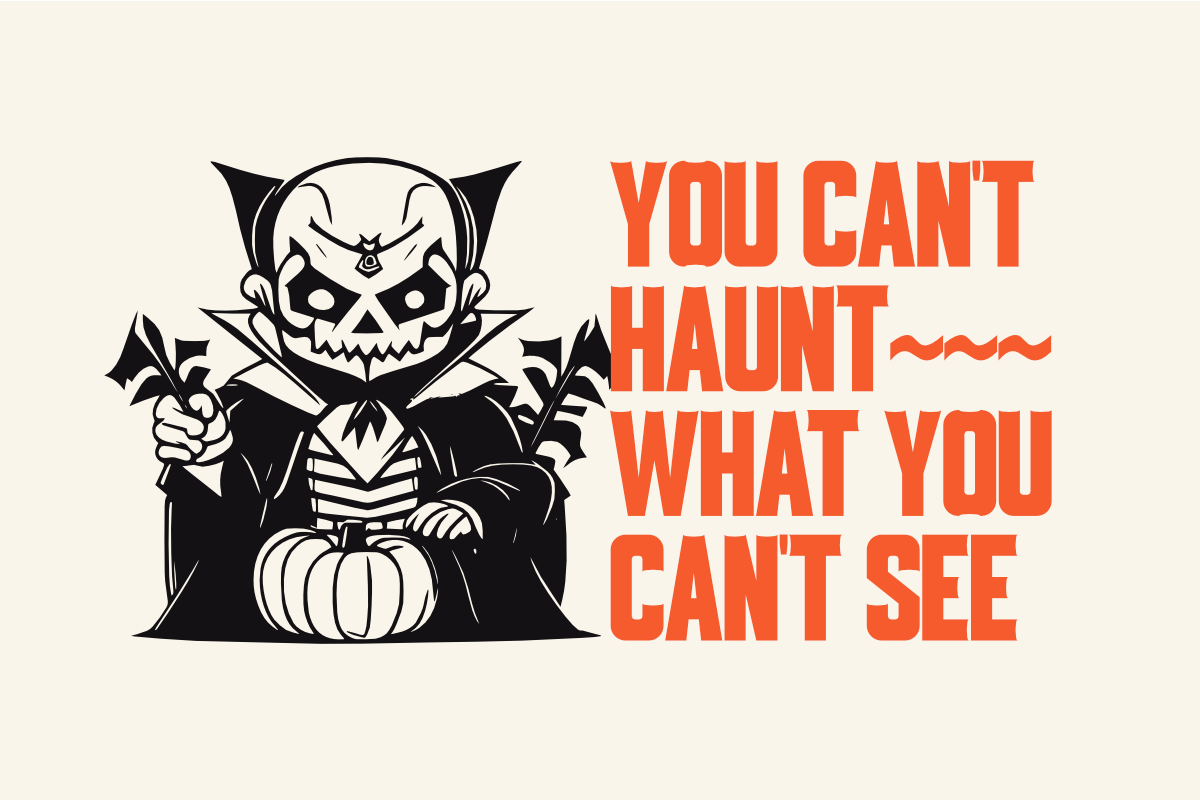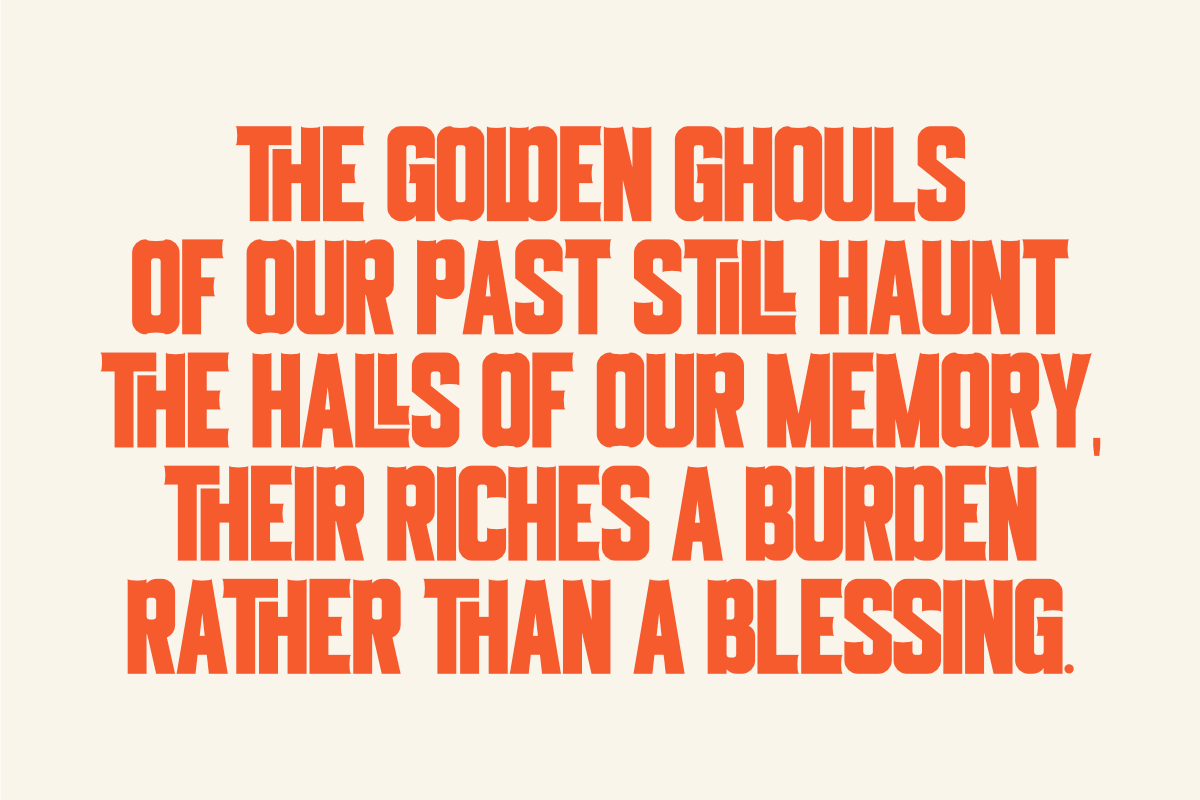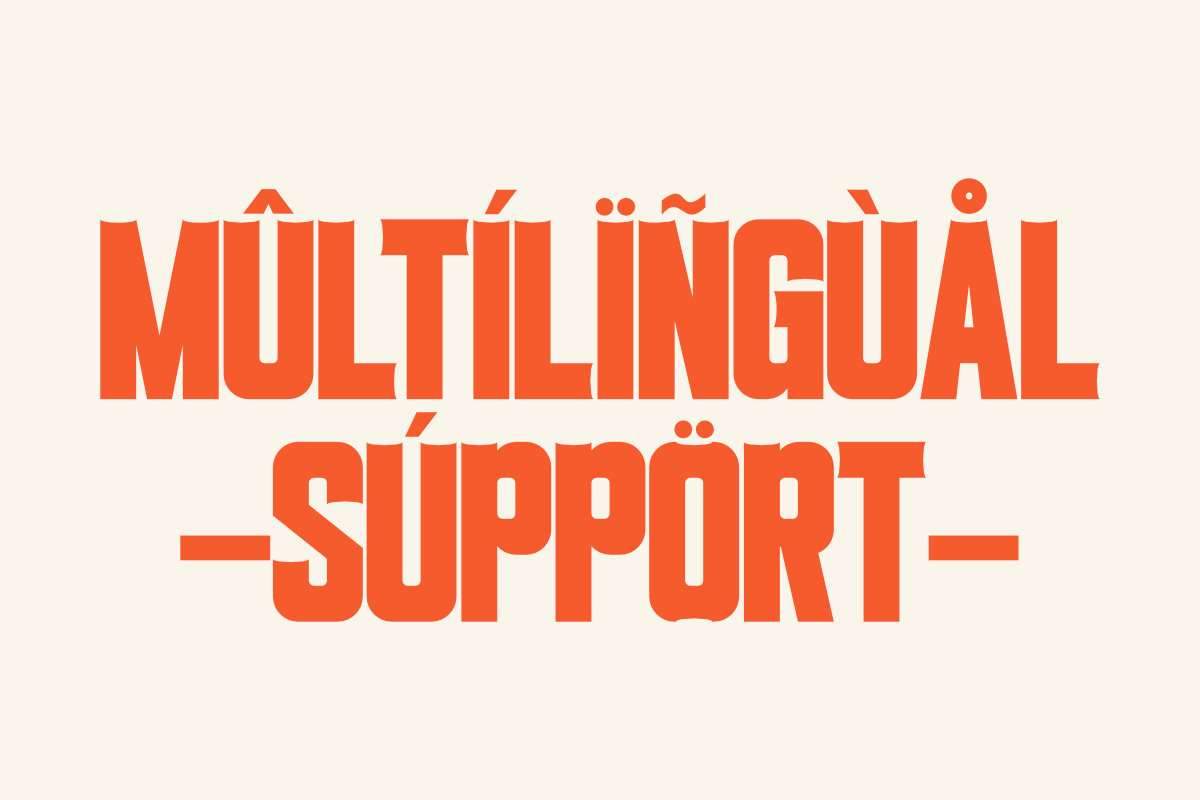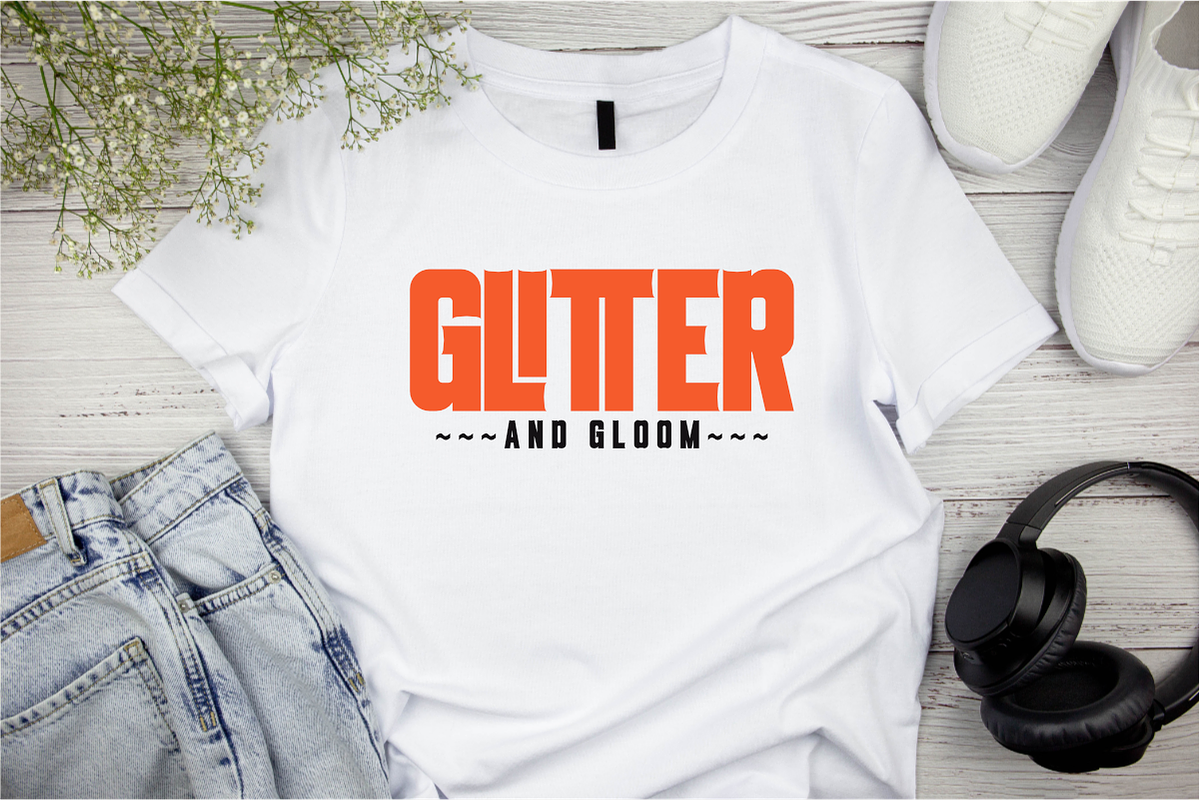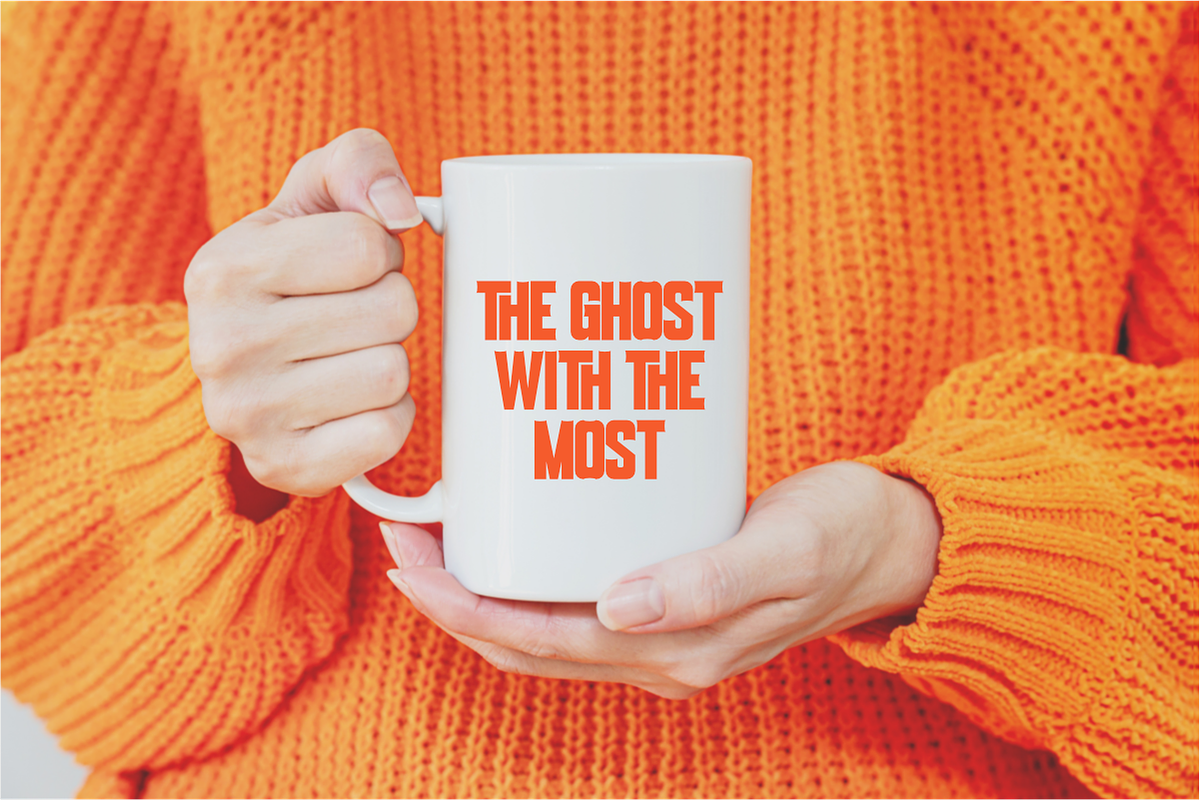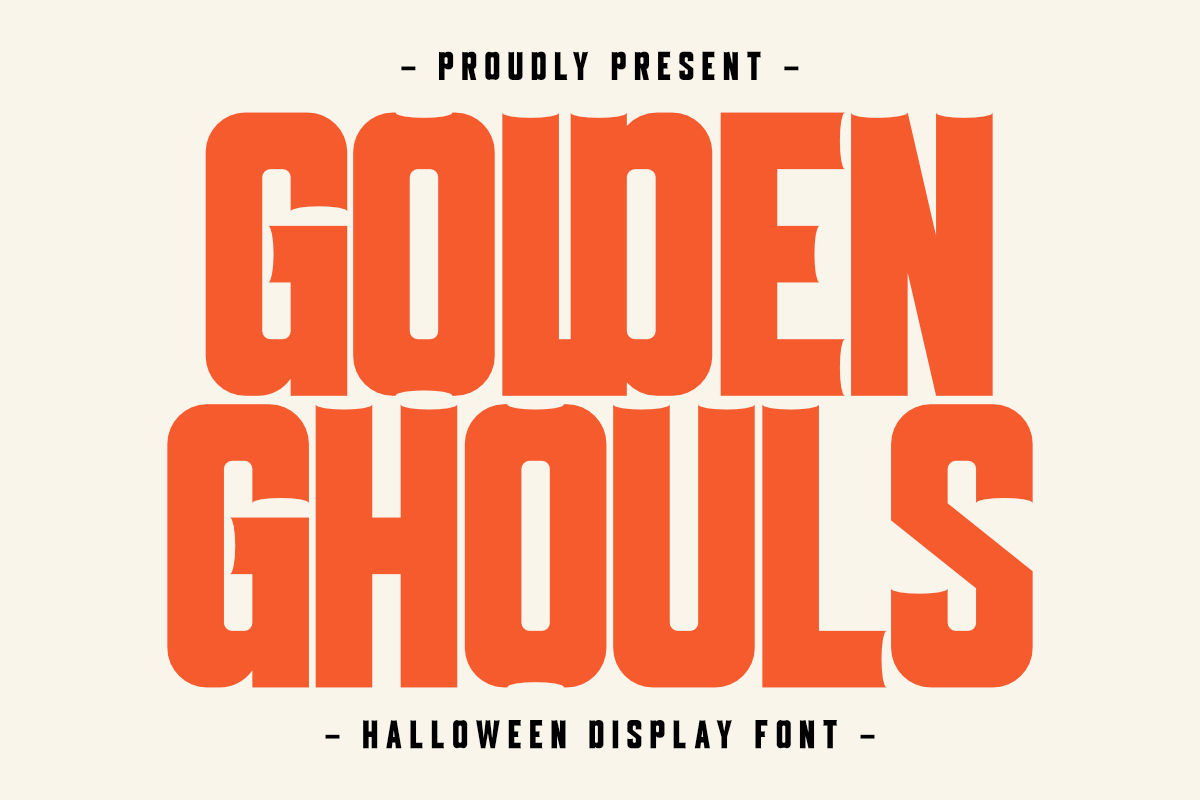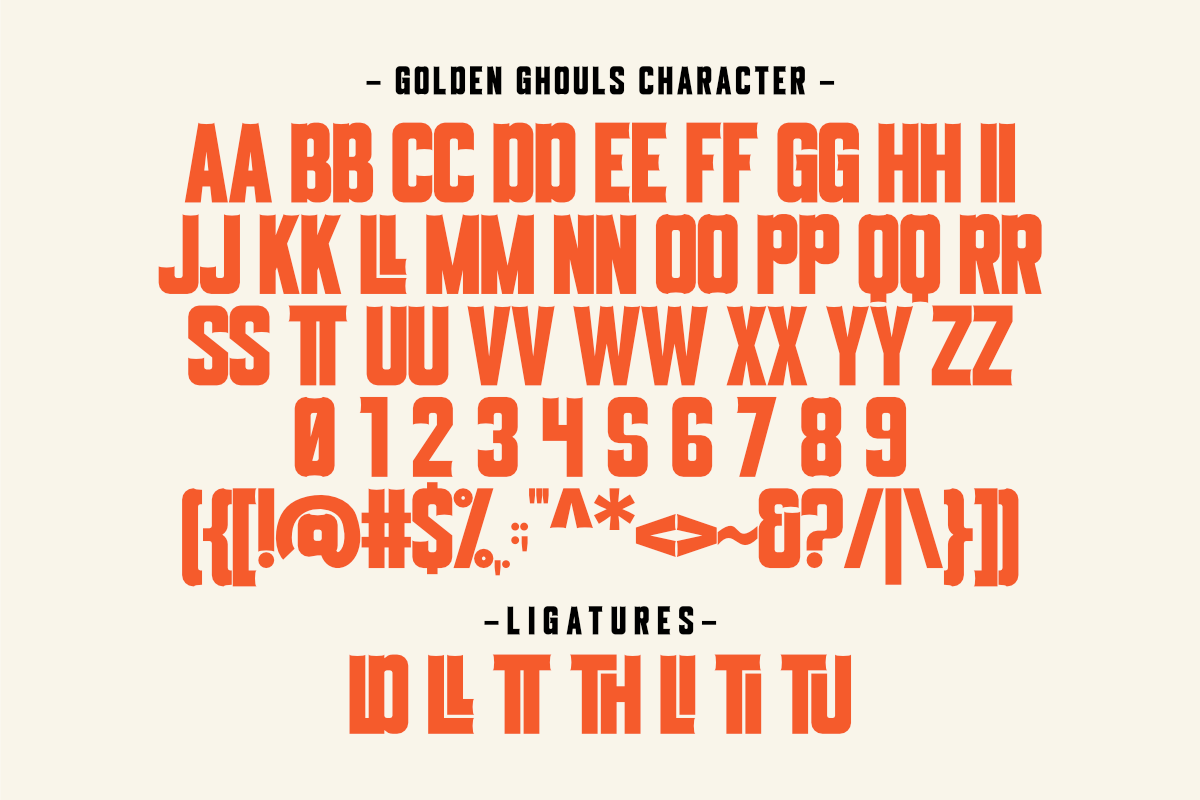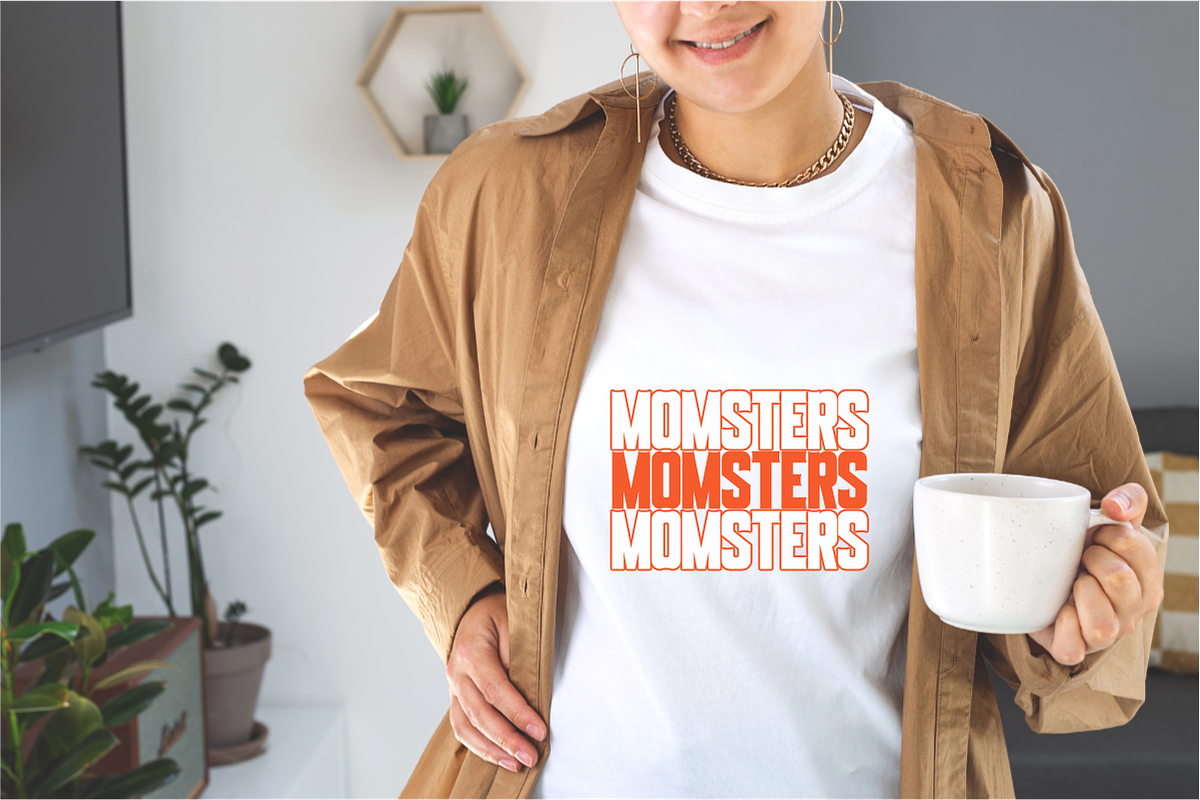
Golden Ghouls - Display Font
Golden Ghouls is a bold unique display font perfect for T-shirt designs, POD, DIY, and laser cuts. Featuring a spooky-cute aesthetic with stylized letterforms and curved serifs, this font adds a playful Halloween touch to your creative projects. Ideal for crafting, branding, and more.